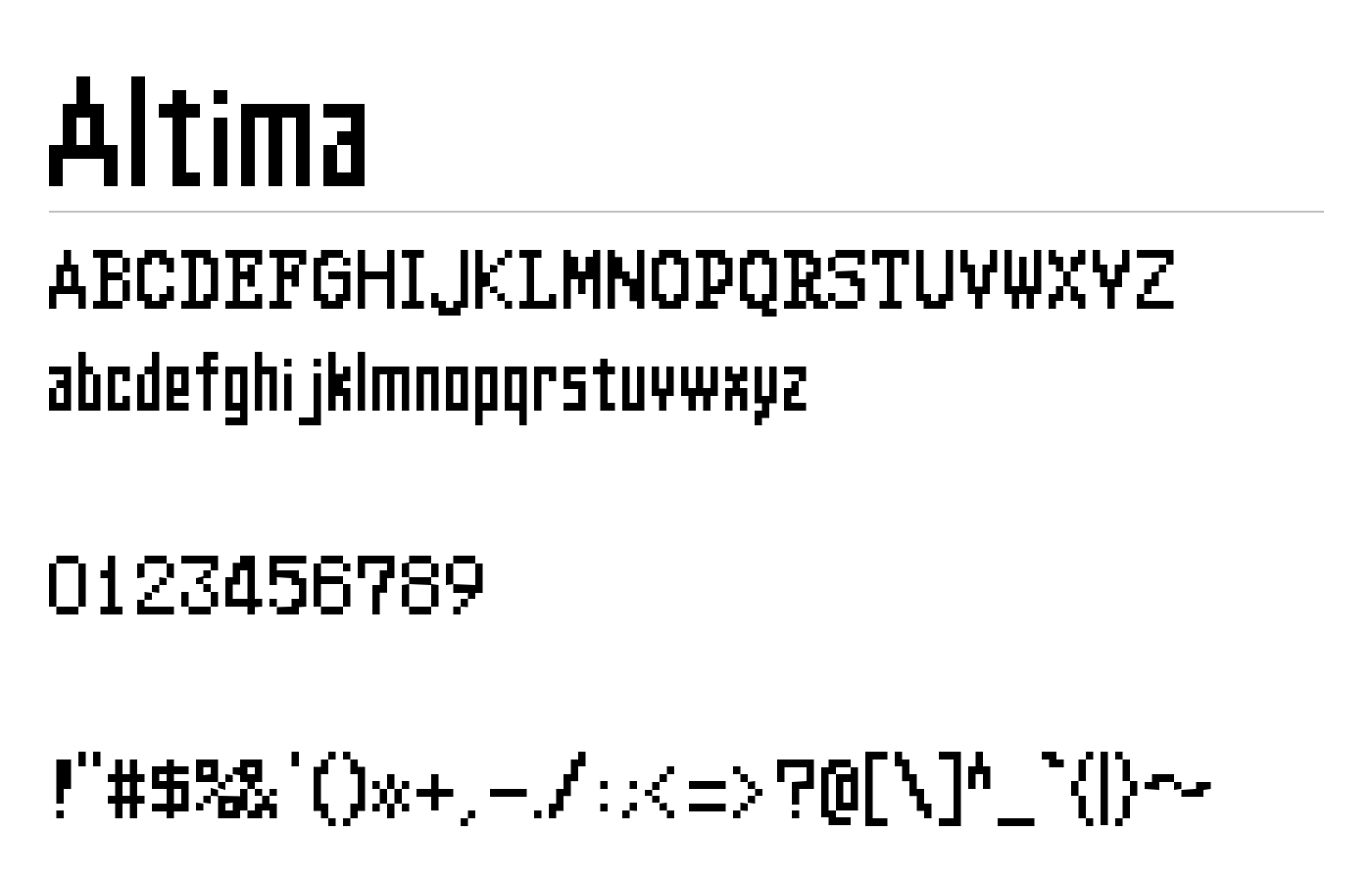
Altima is a pixel-inspired, sans serif font characterized by its blocky and geometric letterforms with a consistent, monospaced feel. Its sharp, squared edges and uniform stroke weight give it a digital, retro video game vibe, making it ideal for tech-related designs, digital art, or any project seeking a nostalgic yet modern pixel aesthetic. This font works well in headlines, logos, and creative projects that want to convey a bold, structured, and slightly playful personality.
Altima Font
About Altima Font
| Designer | Cliff Modes (Caveras) |